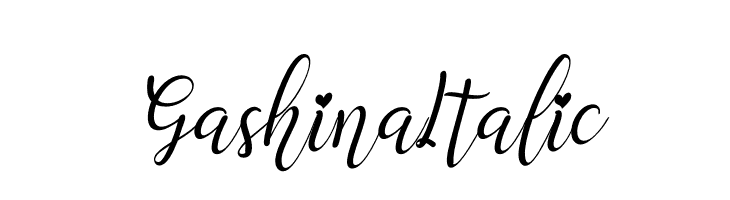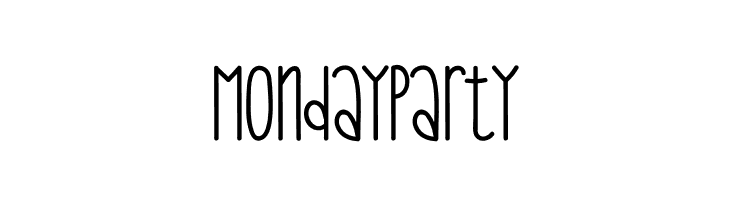
A futuristic, italic font with a striped, dynamic design.
A bold, dynamic font with playful, rounded shapes and artistic flair.
A modern, elegant script font with flowing, cursive letters and graceful curves.
A sleek, modern, light italic sans-serif font with elegant slanted characters.
A lively handwritten font with dynamic, cursive strokes.
An elegant, cursive font with a flowing, handwritten style.
A playful, handwritten font with smooth, rounded strokes and a dynamic style.
A bold, flowing script font with a modern and elegant style.
An elegant, flowing script font with ornate flourishes and decorative elements.
An elegant, flowing script font with a signature-like style.